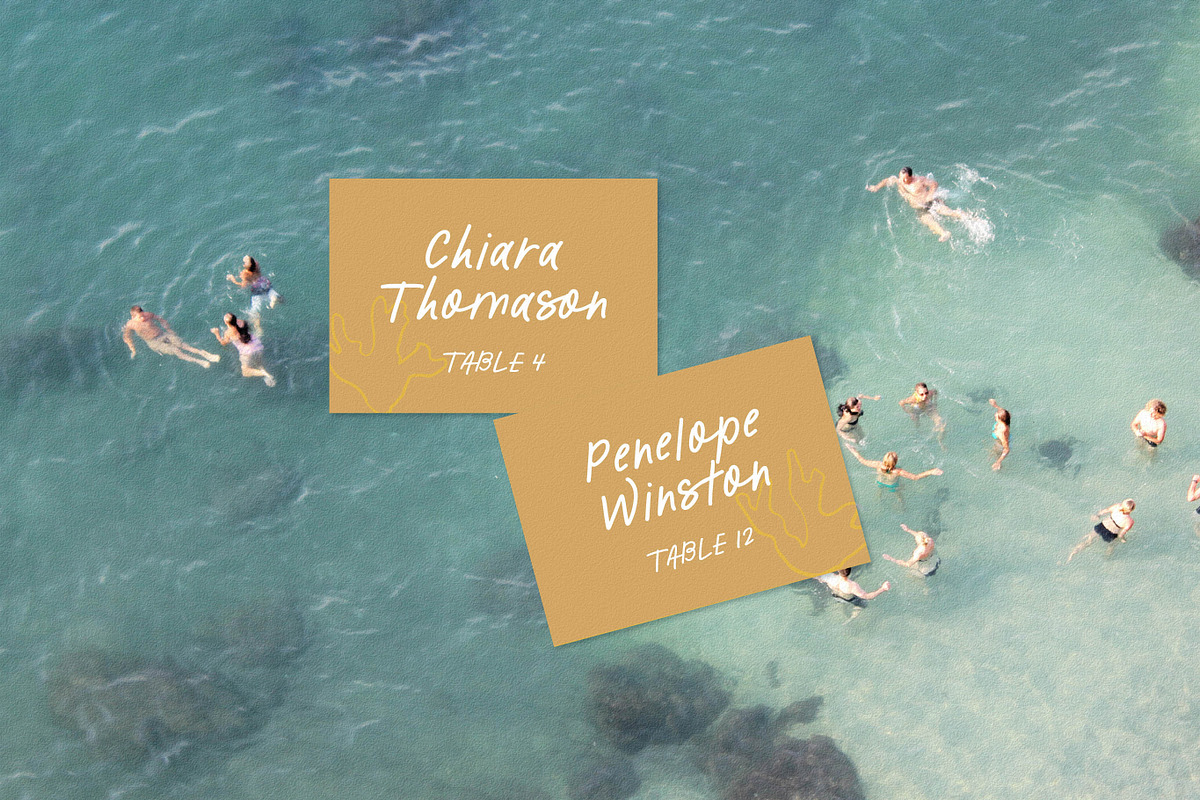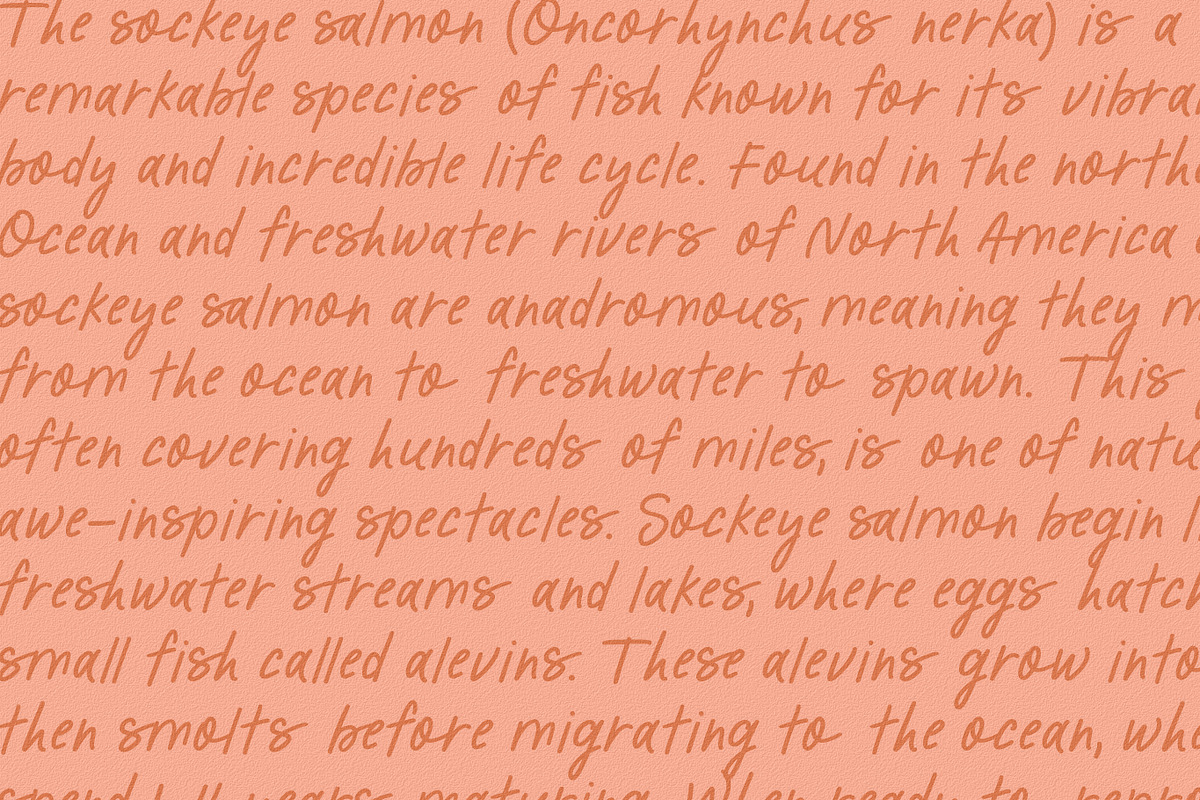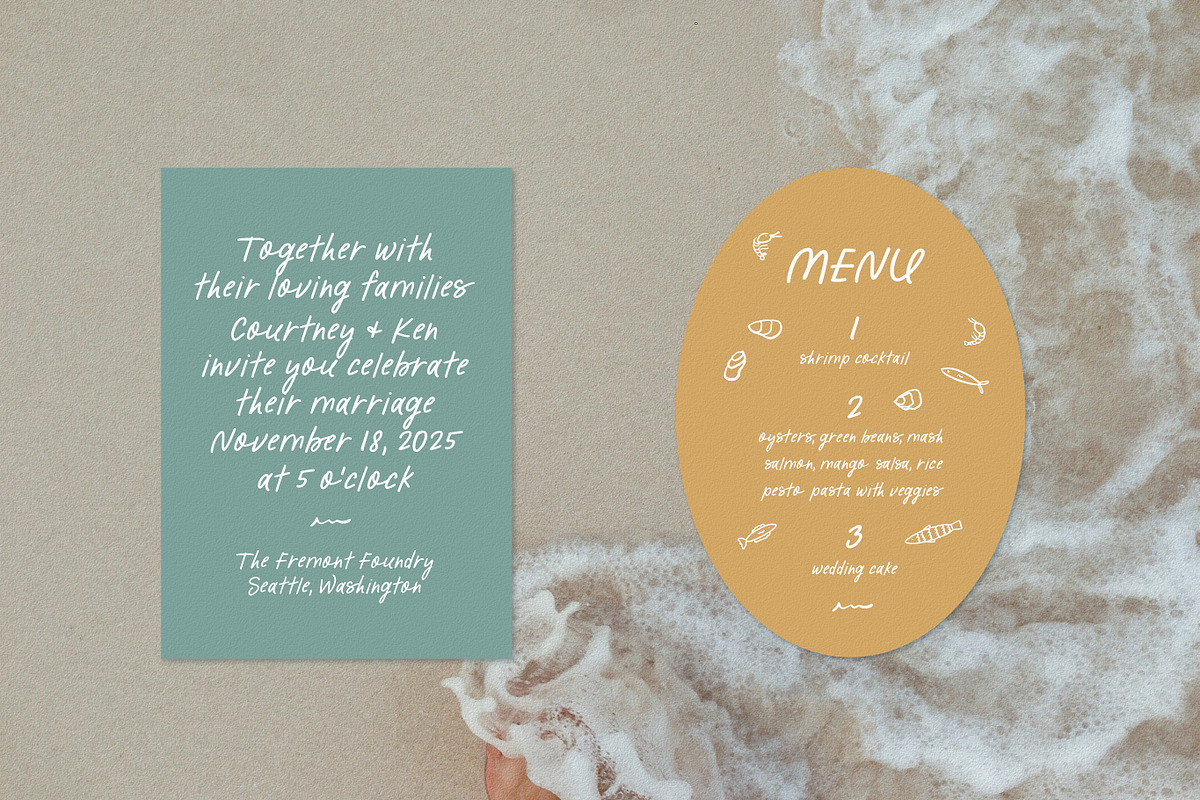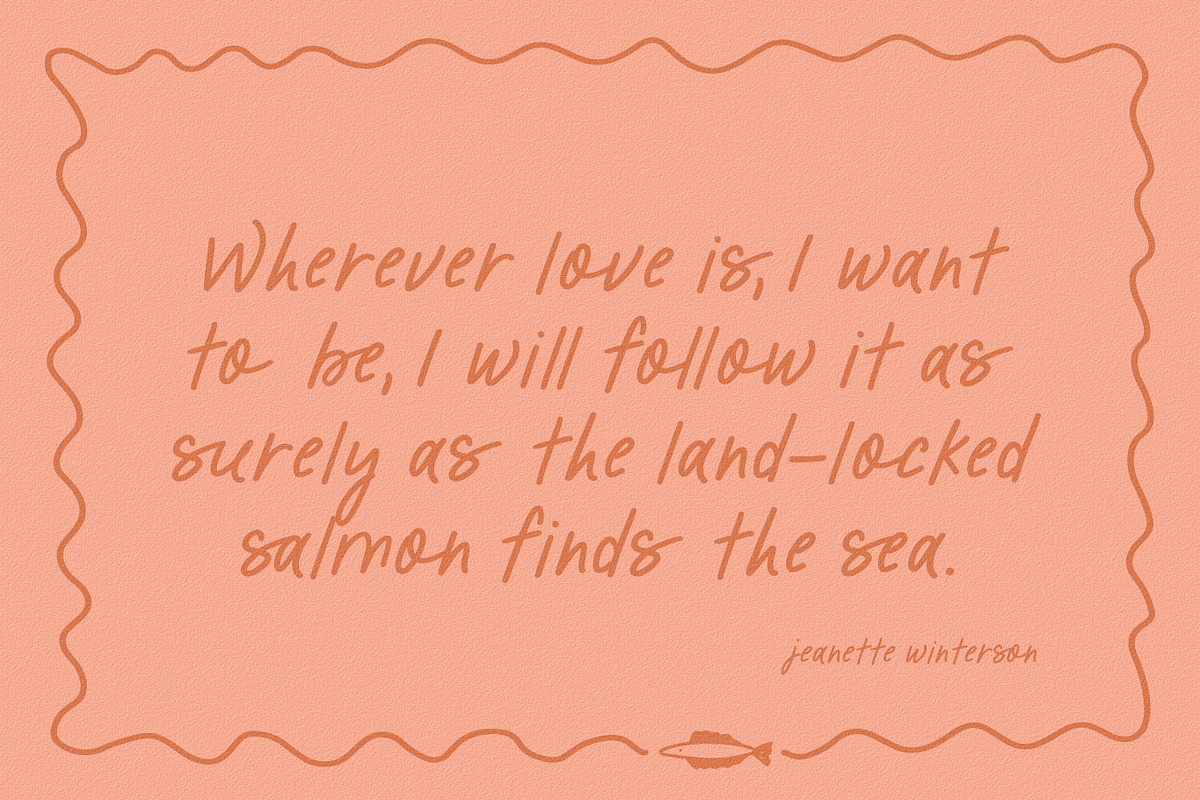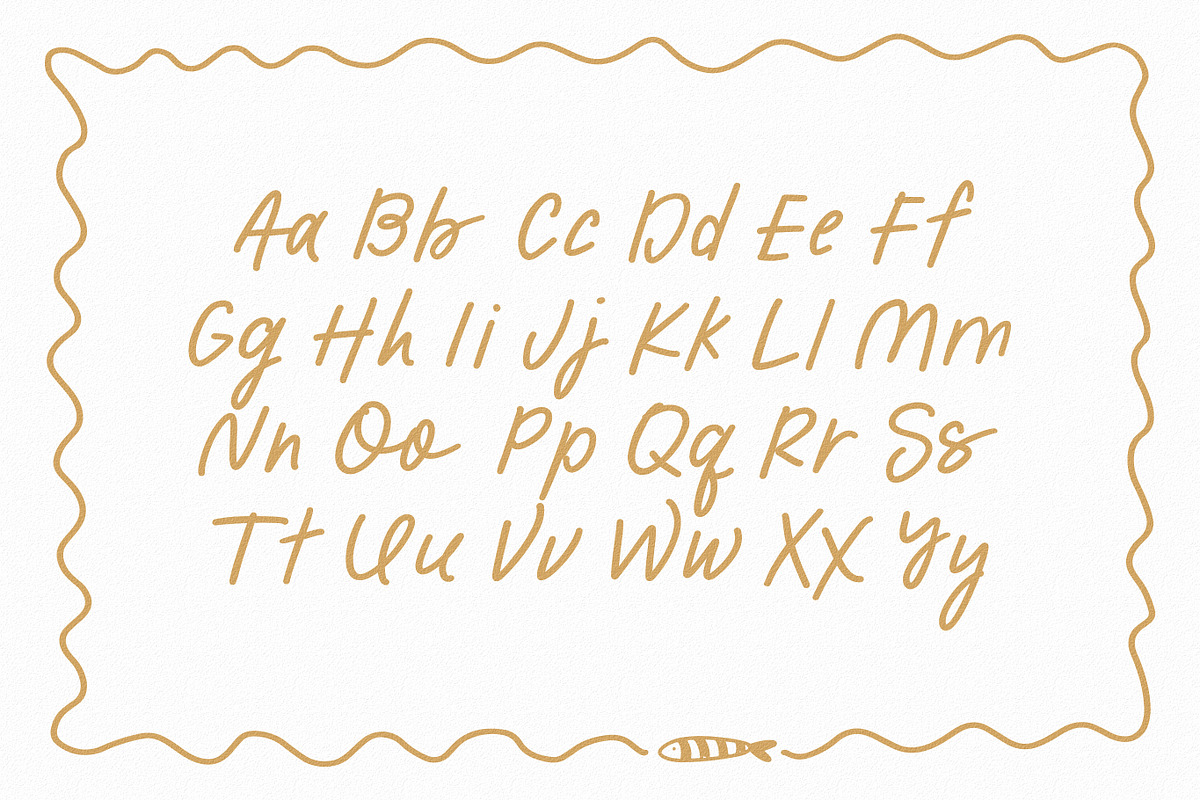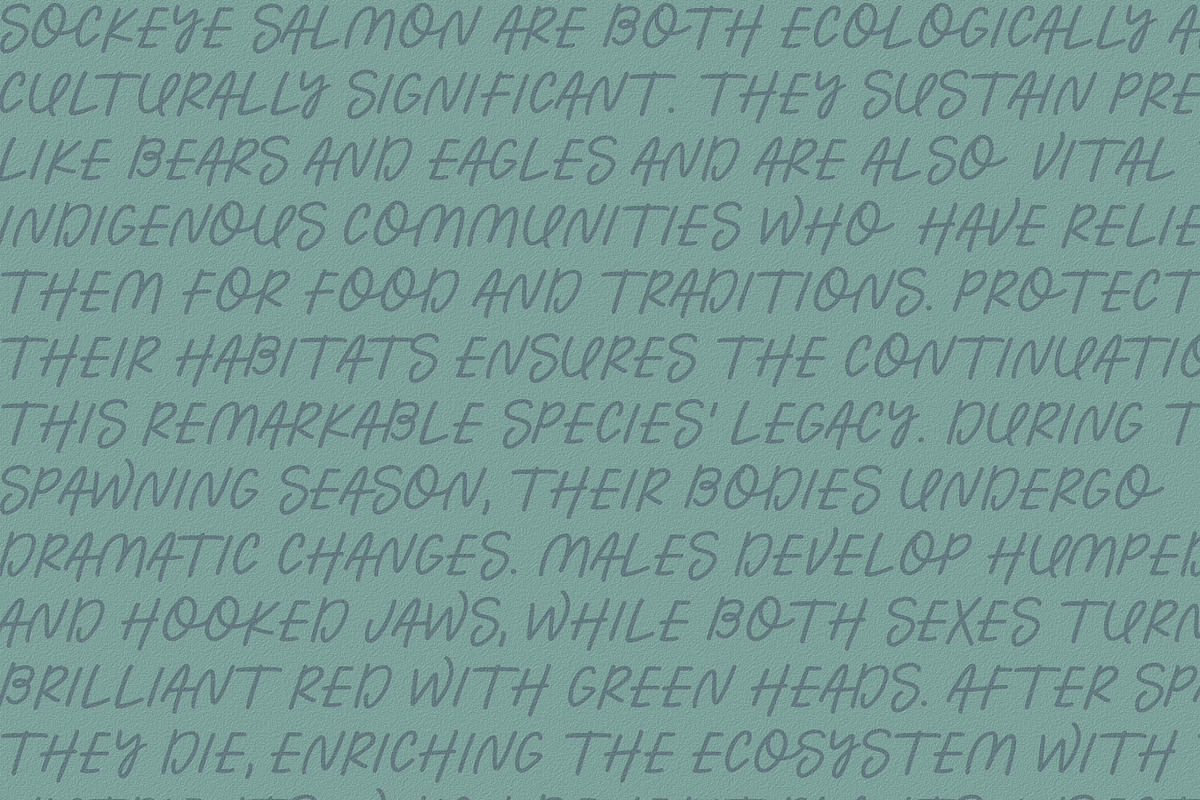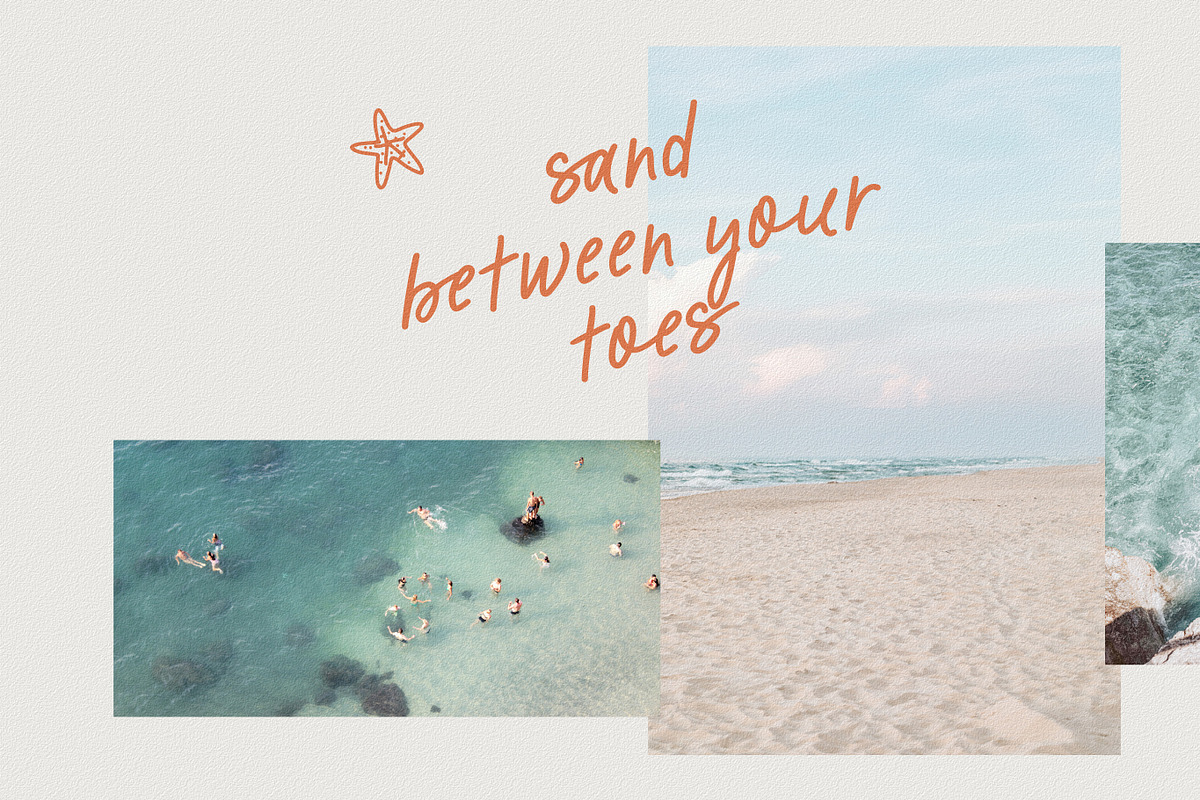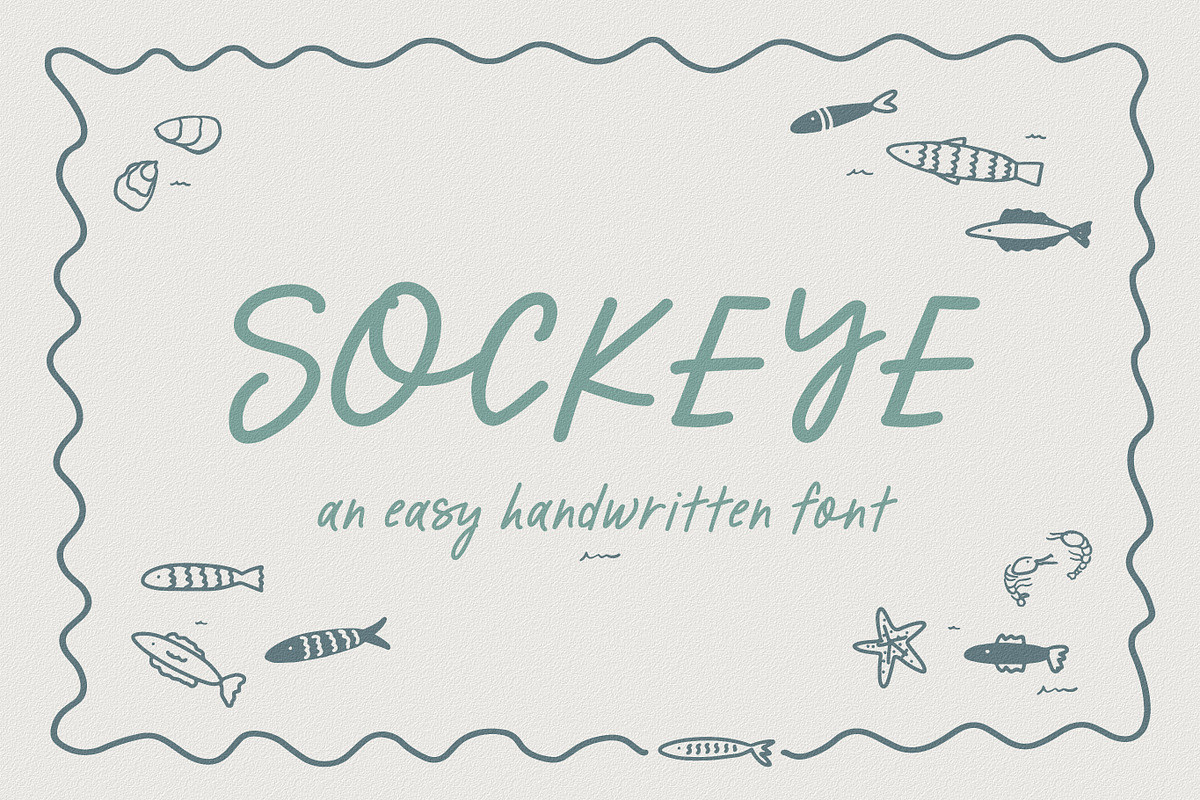
Sockeye - Casual Handwritten Font
Introducing Sockeye, a hand-lettered whimsical font from Design by Laney. This casual, easy handwriting font is perfect for branding, stationery, packaging, social media templates, magazine layouts, artist prints, and more! Plus, enjoy 80+ bonus clipart graphics in PNG and SVG.
With carefully crafted monoline letters, Sockeye works seamlessly in all caps, lowercase, or sentence style. You'll get the feel of a unique, hand-scribbled look that's ideal for modern branding projects, wedding invitations, signage, and DIYs of all sorts! We love how Sockeye looks like you just jotted down a quick note on a napkin - but is still easily legible in all sizes.